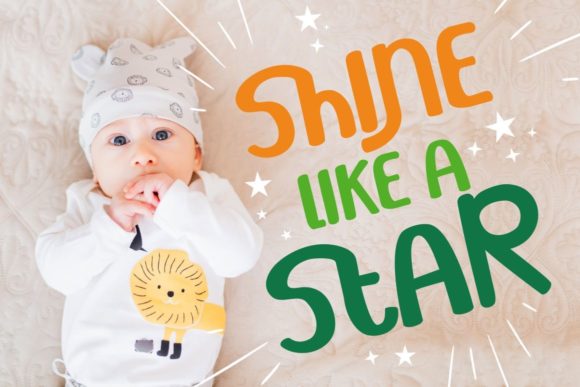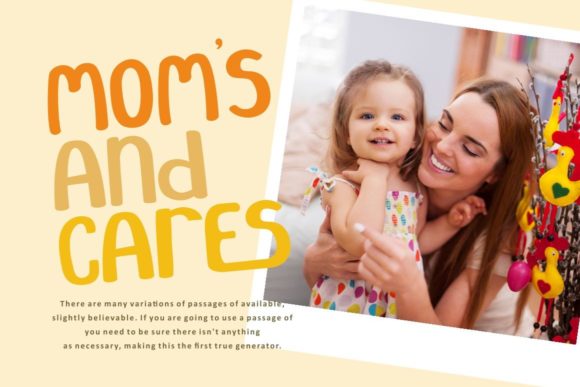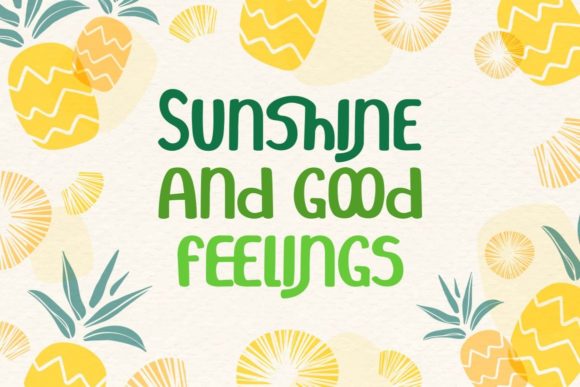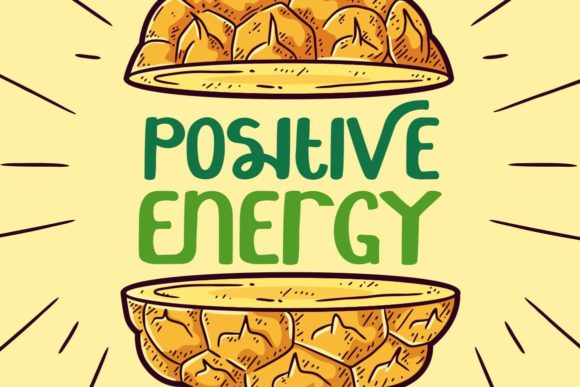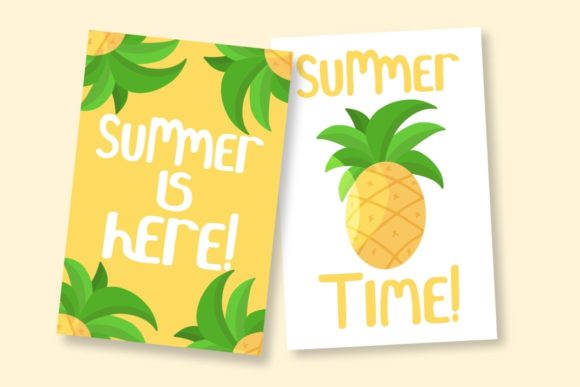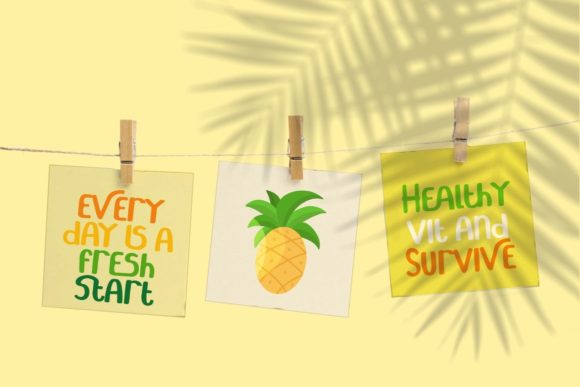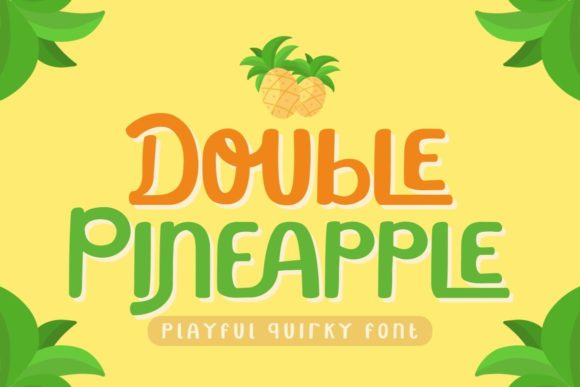
Introducing Double Pineapple Font: The Quirky and Playful Display Font You Need!
Are you tired of using the same old boring fonts in your designs? Look no further! Double Pineapple Font is here to shake things up with its quirky and playful vibe. This display font is perfect for designers and crafters who want to add a touch of fun and whimsy to their creations. In this article, we’ll dive into the features and benefits of Double Pineapple Font, and explore how you can use it to take your designs to the next level.
What is Double Pineapple Font?
Double Pineapple Font is a unique and eye-catching display font that’s sure to turn heads. With its bold and playful design, it’s perfect for use in a variety of projects, from branding and advertising to packaging and crafts. The font is PUA encoded, which means you can access all glyphs and swashes with ease, giving you endless possibilities for creative expression.
Key Features of Double Pineapple Font
- PUA Encoded: Double Pineapple Font is PUA encoded, making it easy to access all glyphs and swashes. This means you can easily add flourishes and decorative elements to your text without having to worry about complicated coding or design software.
- Quirky and Playful: Double Pineapple Font has a fun and quirky vibe that’s perfect for designers and crafters who want to add a touch of personality to their creations.
- Display Font: Double Pineapple Font is a display font, making it perfect for use in headlines, titles, and other large-format text.
- Adds Visual Interest: Double Pineapple Font adds a touch of whimsy and personality to your text, making it stand out from the crowd.
- Increases Engagement: The playful and quirky design of Double Pineapple Font is sure to grab attention and hold it, making it perfect for use in advertising and marketing materials.
- Versatile: Double Pineapple Font can be used in a variety of projects, from digital designs to print materials.
- Easy to Pair: Double Pineapple Font pairs well with a variety of other fonts, making it easy to create visually appealing combinations.
- Add Swashes and Glyphs: Use the PUA encoded features to add swashes and glyphs to your text, giving it a unique and personalized touch.
Double Pineapple Font is a quirky and playful display font that’s perfect for designers and crafters who want to add a touch of fun and whimsy to their creations. With its PUA encoded features and easy-to-use design, it’s a great choice for anyone looking to take their designs to the next level. So why wait? Download Double Pineapple Font today and see the amazing results for yourself!